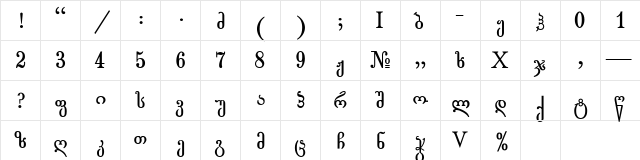
Gogebashvili-ITV Bold
Design Context for Gogebashvili-ITV Typeface
Gogebashvili-ITV offers clean, dependable letterforms without strong stylistic allegiance, making it a practical choice for designers who need flexibility. The heavy weight commands attention and anchors typographic hierarchies.